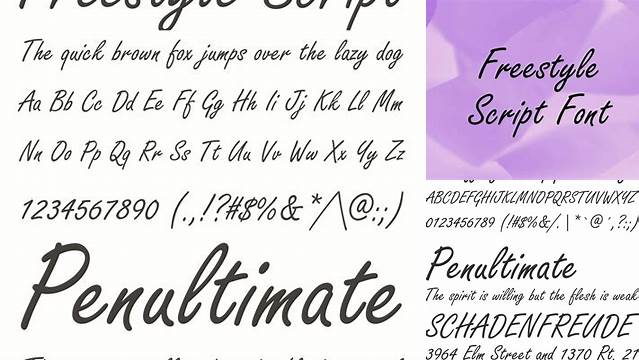
Freestyle Script is a captivating and elegant typeface that has become a staple in the world of design. Its flowing, handwritten style adds a touch of sophistication and personality to any project. Whether you're working on wedding invitations, logos, branding materials, or social media graphics, Freestyle Script can help you achieve a unique and memorable look. In this comprehensive guide, we'll delve into everything you need to know about downloading and using the Freestyle Script font, including its history, characteristics, licensing information, and tips for effective implementation.
What is Freestyle Script Font?
Freestyle Script, a font that exudes charm and grace, is a true embodiment of calligraphic artistry, making it a favorite among designers and creatives. Its flowing strokes and elegant letterforms lend a personal touch to any project, making it perfect for adding a touch of sophistication to invitations, branding materials, and more. This typeface was designed by the renowned Martin Wait in 1981 for Letraset. It quickly gained popularity for its fluid, script-like appearance, making it a go-to choice for projects that require a touch of elegance and personality. Freestyle Script is characterized by its distinctive, connected letterforms and its whimsical, almost playful aesthetic. The font's unique character stems from its calligraphic roots, where each letter seamlessly flows into the next, creating a sense of movement and rhythm. Its strokes are fluid and dynamic, adding a touch of artistry to any design. The font's personality shines through in its swashes and flourishes, which add a decorative touch and enhance its overall elegance. Beyond its aesthetic appeal, Freestyle Script is also known for its versatility. It can be used in a variety of design contexts, from formal invitations to casual social media graphics. Its legibility, even in smaller sizes, makes it suitable for body text as well as headlines. The font's charm lies in its ability to convey a sense of intimacy and warmth, making it an excellent choice for projects that aim to connect with the audience on a personal level. Whether it's used to create a handwritten note effect or to add a touch of elegance to a logo, Freestyle Script never fails to impress. In the world of typography, Freestyle Script stands out as a true gem, a testament to the power of calligraphic design in the digital age. Its timeless appeal and versatility ensure that it will remain a favorite among designers for years to come.
History and Popularity of Freestyle Script
The story of Freestyle Script, guys, is actually quite fascinating, showing how a font can become a classic over time. It was created way back in 1981 by Martin Wait for Letraset, and it quickly became a hit. Think about it – that's over four decades of being a go-to font for designers! Back in the early 80s, the world of design was a different place, but Freestyle Script's unique handwritten style really struck a chord. Its elegance and fluidity set it apart, making it perfect for projects that needed a personal touch. Over the years, Freestyle Script has maintained its popularity, and there's a good reason for that. It's not just a pretty font; it's incredibly versatile. You see it everywhere, from wedding invitations to logos, and even in social media graphics. This adaptability is a key part of its success. The font has a timeless quality that transcends trends, making it a reliable choice for designers looking to add a touch of sophistication to their work. Its appeal lies in its ability to balance elegance with a sense of informality. It feels personal and approachable, which is why it works so well in a variety of contexts. Whether it's used to create a sense of handwritten charm or to add a touch of flair to a formal design, Freestyle Script consistently delivers. There are many factors that have contributed to Freestyle Script's enduring popularity. Its availability across different platforms and software has made it accessible to a wide range of users. Its distinctive appearance makes it easily recognizable, which is crucial for branding and identity projects. Moreover, its ability to evoke emotions and create a specific mood has made it a favorite among designers looking to convey a particular message. In the ever-evolving world of design, where trends come and go, Freestyle Script has stood the test of time. Its continued use in both print and digital media is a testament to its quality and relevance. For anyone looking to add a touch of classic elegance to their projects, Freestyle Script remains a top choice, proving that some designs truly are timeless.
Tips for Using Freestyle Script Effectively
Using Freestyle Script effectively can really elevate your designs, but like any font, it has its quirks and best uses. You can't just slap it on everything and expect it to look amazing, right? So, let's dive into some tips to help you make the most of this elegant typeface. First off, think about context. Freestyle Script is a script font, and script fonts are generally best used for headings, titles, or short bursts of text. They're not typically ideal for long paragraphs because their decorative nature can make them harder to read in large blocks. Imagine trying to read a whole book written in Freestyle Script – your eyes would probably get tired pretty quickly! So, use it sparingly to make the biggest impact. Pair Freestyle Script with a simpler, more legible font for body text. A classic sans-serif or a clean serif font can provide a nice contrast and ensure your overall design is easy to read. Think of it as a balancing act – the elegant script draws attention, while the simpler font provides clarity. Good font pairings can make a huge difference in the overall look and feel of your project. When you're working with Freestyle Script, pay attention to letter spacing and kerning. Because it's a flowing script font, the spacing between letters can sometimes look uneven if you don't adjust it. Kerning is the process of adjusting the space between individual letter pairs to create a more harmonious look. Most design software has tools to help you with this, so take the time to tweak the spacing until it looks just right. Another tip is to consider the size of the font. Freestyle Script can look stunning at larger sizes, where its elegant details really shine. However, it can become less legible at very small sizes. If you're using it for a small element, like a website navigation menu, make sure it's still readable. You might need to experiment with different sizes to find the sweet spot. Color is another important factor to consider. Freestyle Script often looks best in a color that contrasts well with the background. A dark color on a light background, or vice versa, can help the font stand out and make a statement. Experiment with different color combinations to see what works best for your design. Finally, think about the overall tone and style of your project. Freestyle Script is a pretty elegant and somewhat formal font, so it might not be the best choice for a design that's meant to be edgy or modern. It's perfect for invitations, branding materials for luxury products, or designs that need a touch of sophistication. But if you're going for a more minimalist or contemporary look, you might want to choose a different font. So, there you have it – some key tips for using Freestyle Script effectively. Remember to use it sparingly, pair it with a legible font, adjust the letter spacing, consider the size and color, and think about the overall tone of your project. With these tips in mind, you'll be able to create beautiful designs that really showcase the elegance of Freestyle Script.
In conclusion, guys, downloading and using the Freestyle Script font can really add a touch of elegance and personality to your design projects. It's a timeless typeface that has stood the test of time, and for good reason. Its flowing, handwritten style is both captivating and versatile, making it a great choice for a wide range of applications. We've covered a lot in this guide, from understanding what Freestyle Script is and its history, to where you can safely download it and how to use it effectively. Remember, finding a reliable source for your fonts is crucial, especially when it comes to commercial projects. You want to make sure you're getting the authentic version and adhering to the licensing terms. Reputable font marketplaces and official sources are always the best way to go. And speaking of licensing, always, always check the usage rights before you incorporate Freestyle Script into your designs. Whether you're working on personal projects or commercial ventures, understanding the license will save you from potential legal headaches down the road. We've also discussed some key tips for using Freestyle Script effectively. Remember, it's best used for headings, titles, or short bursts of text, and pairing it with a simpler font for body text is a smart move. Pay attention to letter spacing, size, color, and the overall tone of your project to really make the most of this elegant typeface. Freestyle Script has a unique charm that can elevate your designs, but it's all about using it in the right context. By following these guidelines, you'll be well-equipped to incorporate Freestyle Script into your projects and create stunning visuals. Whether you're designing wedding invitations, branding materials, or social media graphics, this font can help you achieve a sophisticated and memorable look. So, go ahead and download Freestyle Script, and start experimenting with its beautiful curves and flowing lines. With a little practice and attention to detail, you'll be creating designs that truly shine. And remember, guys, typography is a powerful tool, so use it wisely and have fun with it! Whether you're a seasoned designer or just starting out, Freestyle Script is a font that's worth exploring. Its timeless appeal and versatility make it a valuable addition to any designer's toolkit. So, happy designing, and may your projects always be stylish and elegant!